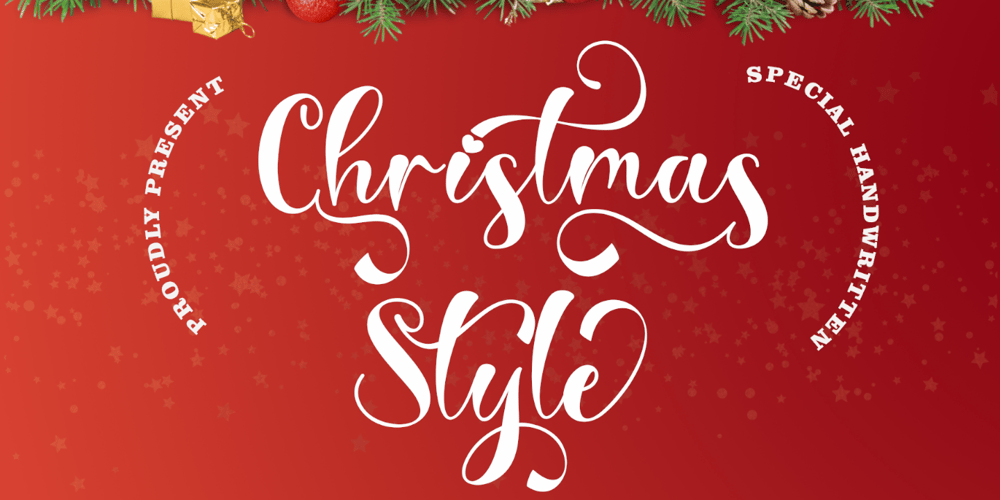
Christmas Style Font Family was designed by Isroni Yoga Prasetya and published by Yoga Letter. Christmas Style contains 1 styles and family package options. “Christmas style” is a beautiful and unique handwritten font. This font is very beautiful and elegant. includes uppercase, lowercase, swashes, titling, alternative uppercase and lowercase, multilingual support, binders, numbers, and punctuation. It is suitable for Christmas greetings, invitations, weddings, and more.